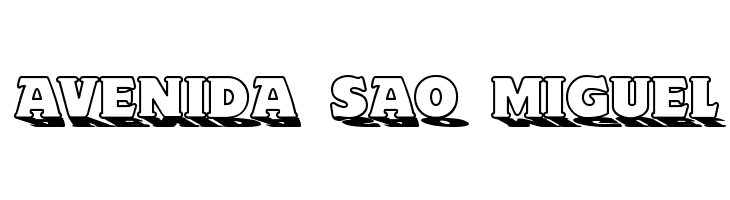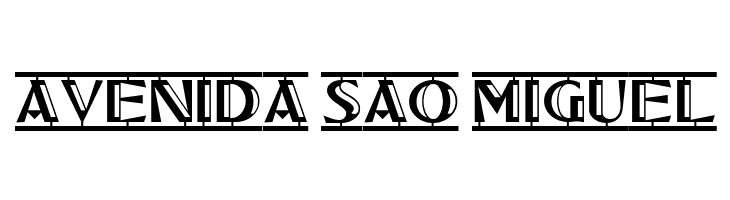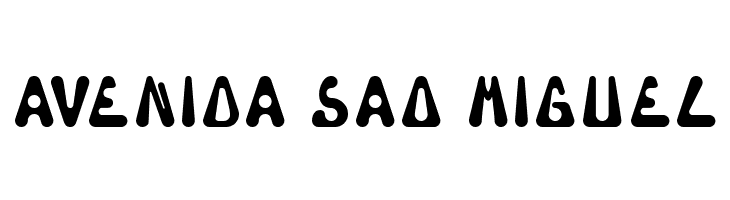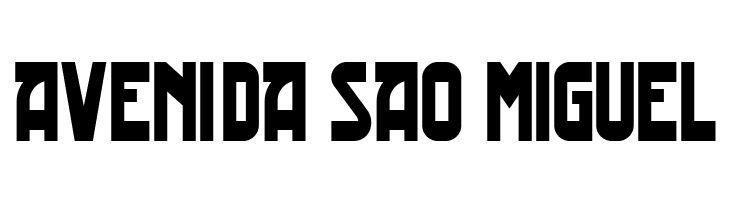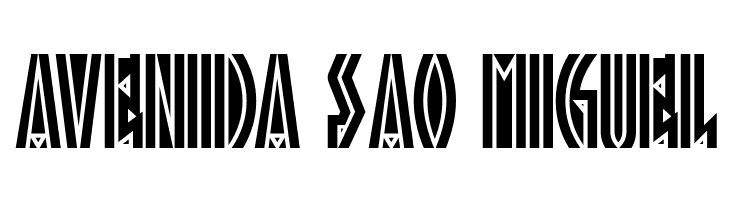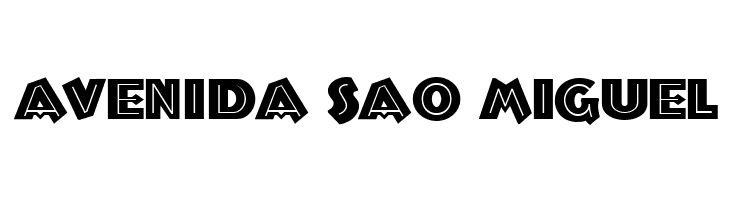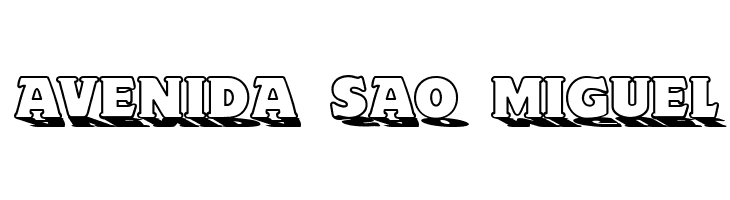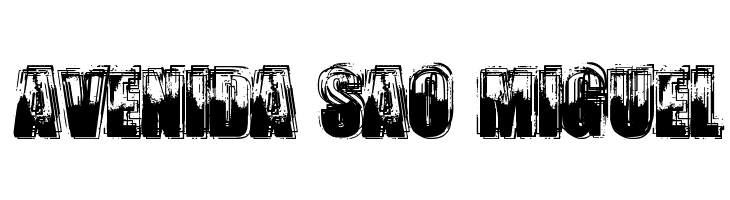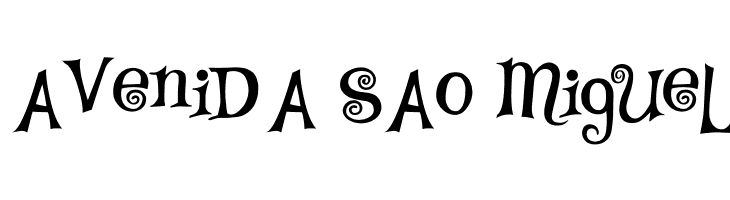
A bold, blocky font with a 3D effect and retro digital style.
A bold, playful font with a 3D shadow effect, perfect for eye-catching designs.
A bold, playful font with a 3D shadow effect, ideal for eye-catching designs.
A bold, geometric font with a modern and assertive style.
A bold, distressed slab serif font with a grunge texture.
A vintage typewriter-style font with a slightly distressed, hand-crafted appearance.
A decorative font with characters resembling intricate tree branches and roots.
A decorative font with geometric shapes and shadow effects, ideal for creative projects.
A geometric, shadowed font with bold outlines and artistic detailing.
A bold, geometric font with triangular elements and rounded letterforms.
A collection of intricate tribal and indigenous-inspired symbols.
A decorative font featuring tribal bird motifs with intricate and bold designs.
A collection of tribal-inspired illustrations featuring animals and abstract figures with intricate patterns.
A collection of intricate tribal-inspired illustrations with bold, artistic motifs.
Intricate tribal designs featuring animal motifs and abstract forms with bold lines and cultural symbolism.
A bold, geometric font with a retro, angular design.
A bold, distressed font with a grungy, textured style.
A bold, geometric font with dramatic, decorative elements.
A bold, blocky font with a strong geometric structure and minimal contrast.
A whimsical, curly font with bold, artistic characters.
A bold, hand-drawn font with a playful and expressive style.
A bold, decorative font with geometric elements and high contrast strokes.
A distressed, grungy font with a chaotic and edgy aesthetic.
A playful, casual handwritten font with bold strokes and a whimsical touch.
A bold, geometric font with a modern, industrial aesthetic.
A geometric, block-like outline font with a modern digital feel.
A bold, high-contrast font with gothic influences and decorative serifs.